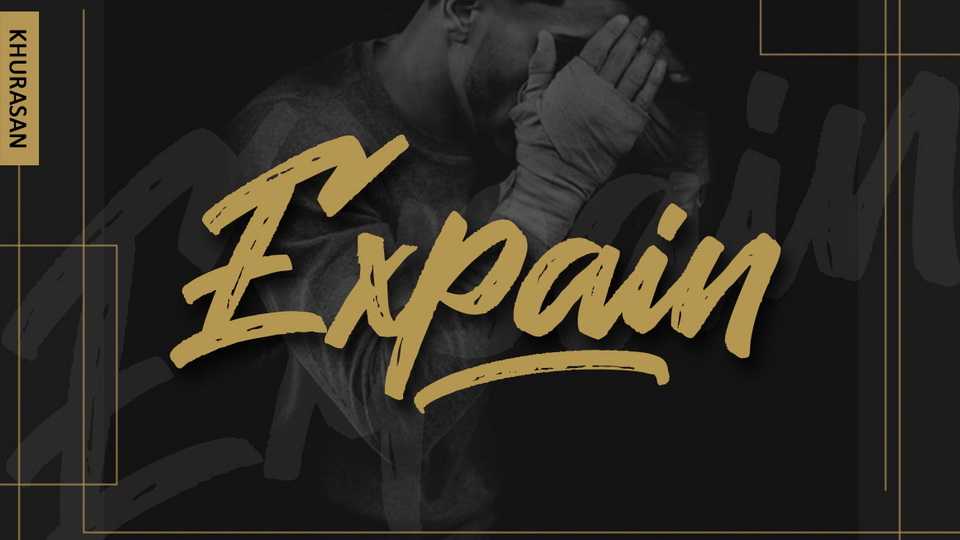
Download Expain font, a modern hand lettered brush script with an impressive feel. Expain font is suitable for headlines, posters, t-shirts and apparel and other projects.